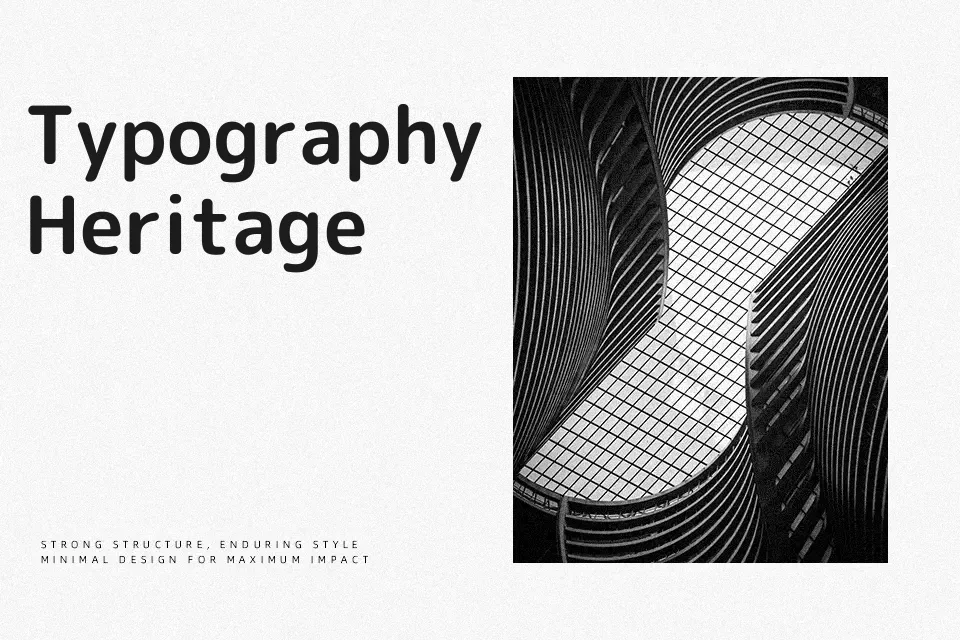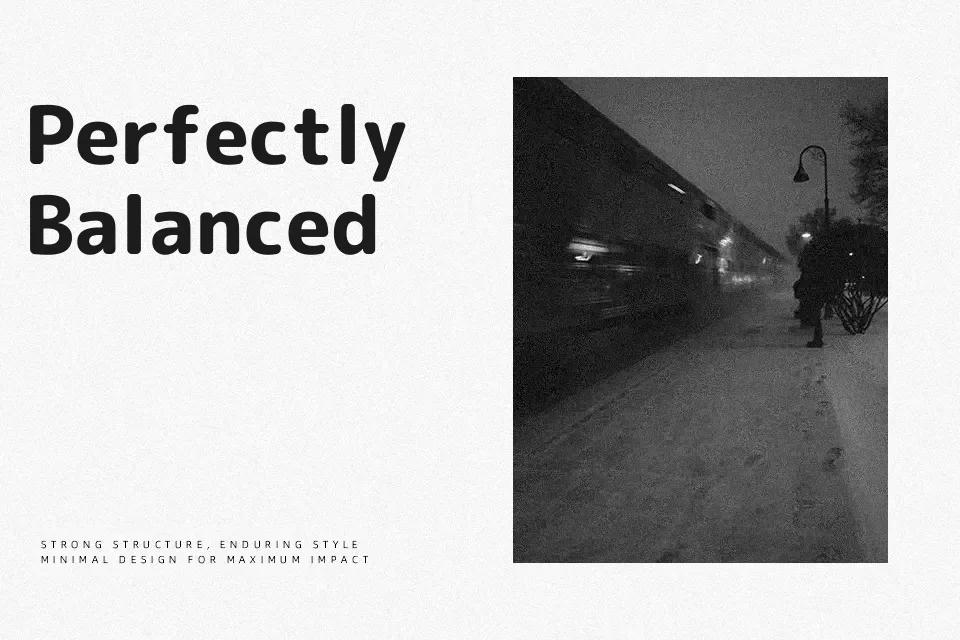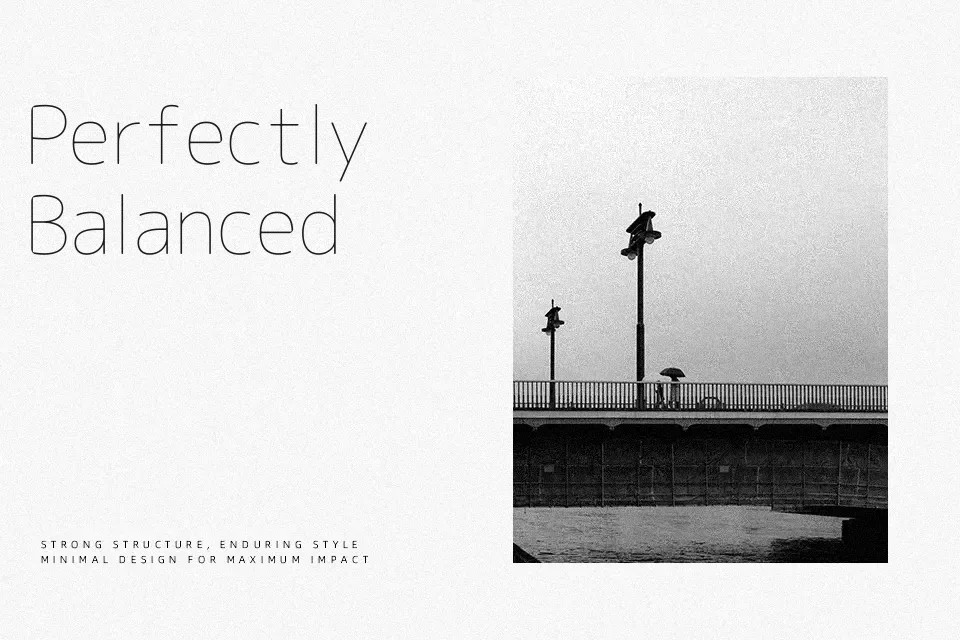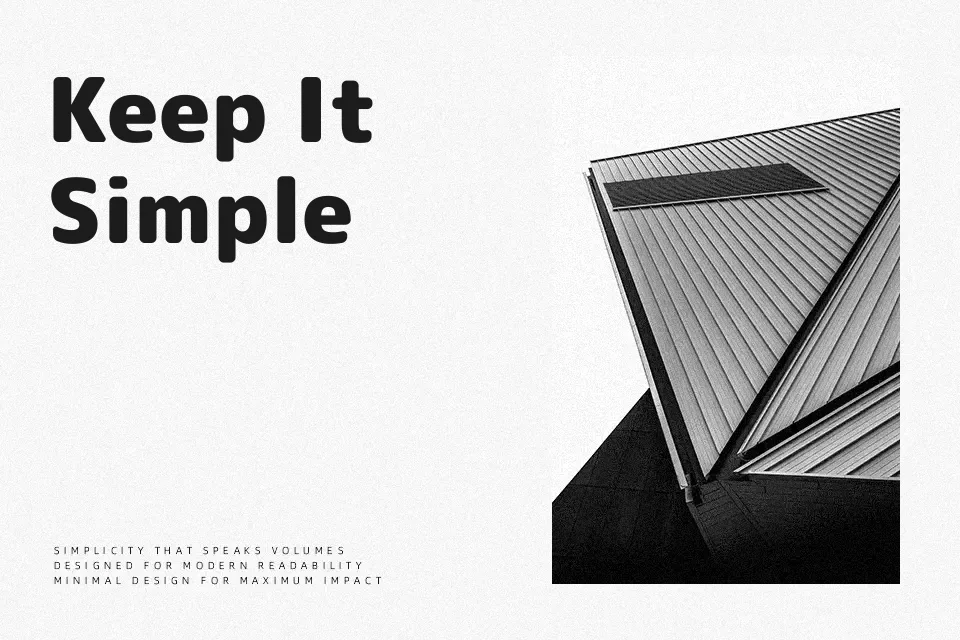
M PLUS Rounded 1c Font
M PLUS Rounded 1c blends geometric precision with gentle softness. Its slightly rounded terminals and even spacing create a humanized tone without losing structure or readability. The typeface covers multiple weights, allowing both light, conversational looks and stronger display uses. It works beautifully in interfaces, branding for tech or lifestyle products, and kid-focused packaging where trustworthiness and friendliness are key. However, its polished uniformity may feel too modern or restrained for decorative or expressive lettering. Compared to sharper sans faces, it softens visual edges, making layouts feel cleaner and more balanced.
UI design
Product packaging
Modern branding
Headlines
Decorative lettering
Formal publications
Long-form print text
Perfect for branding, headline, and logo, with a clean and rounded style.